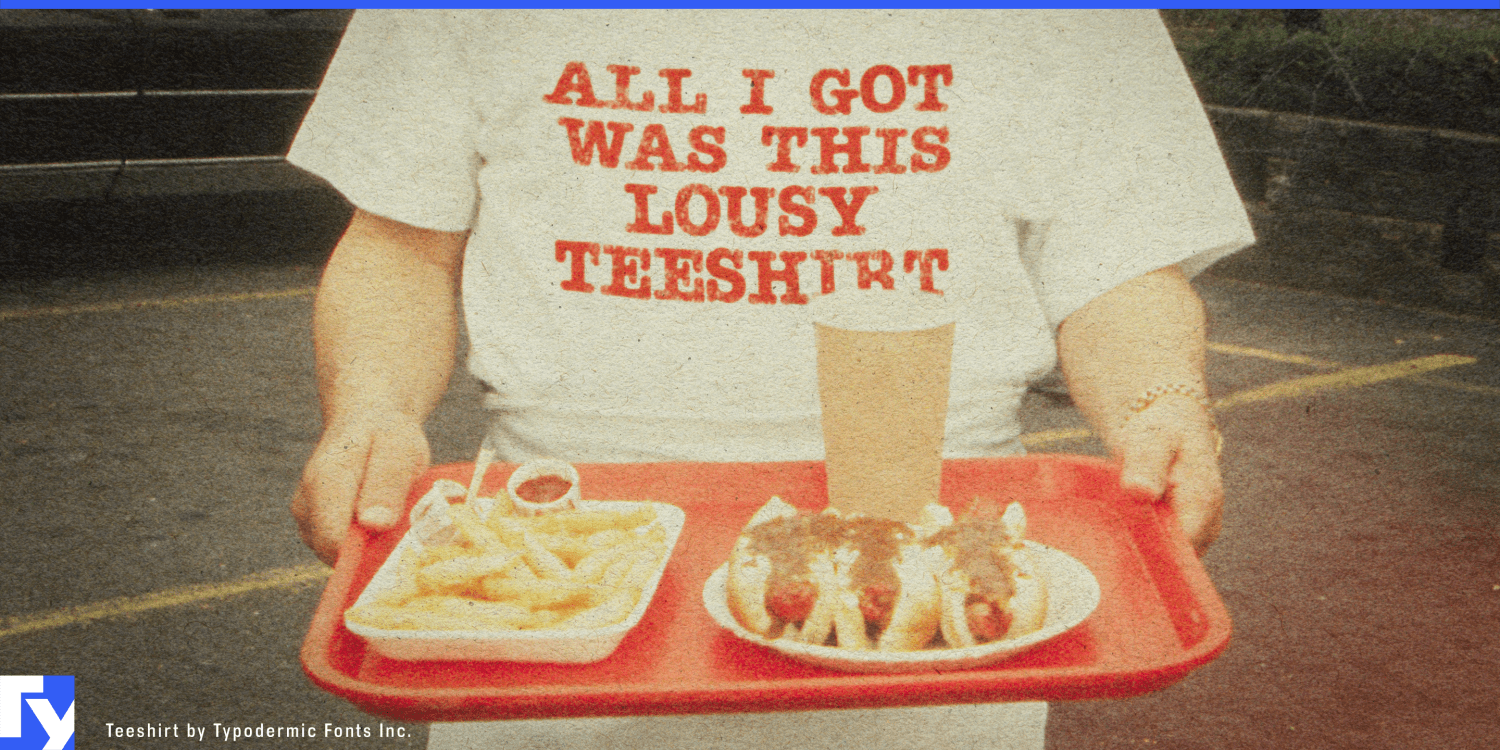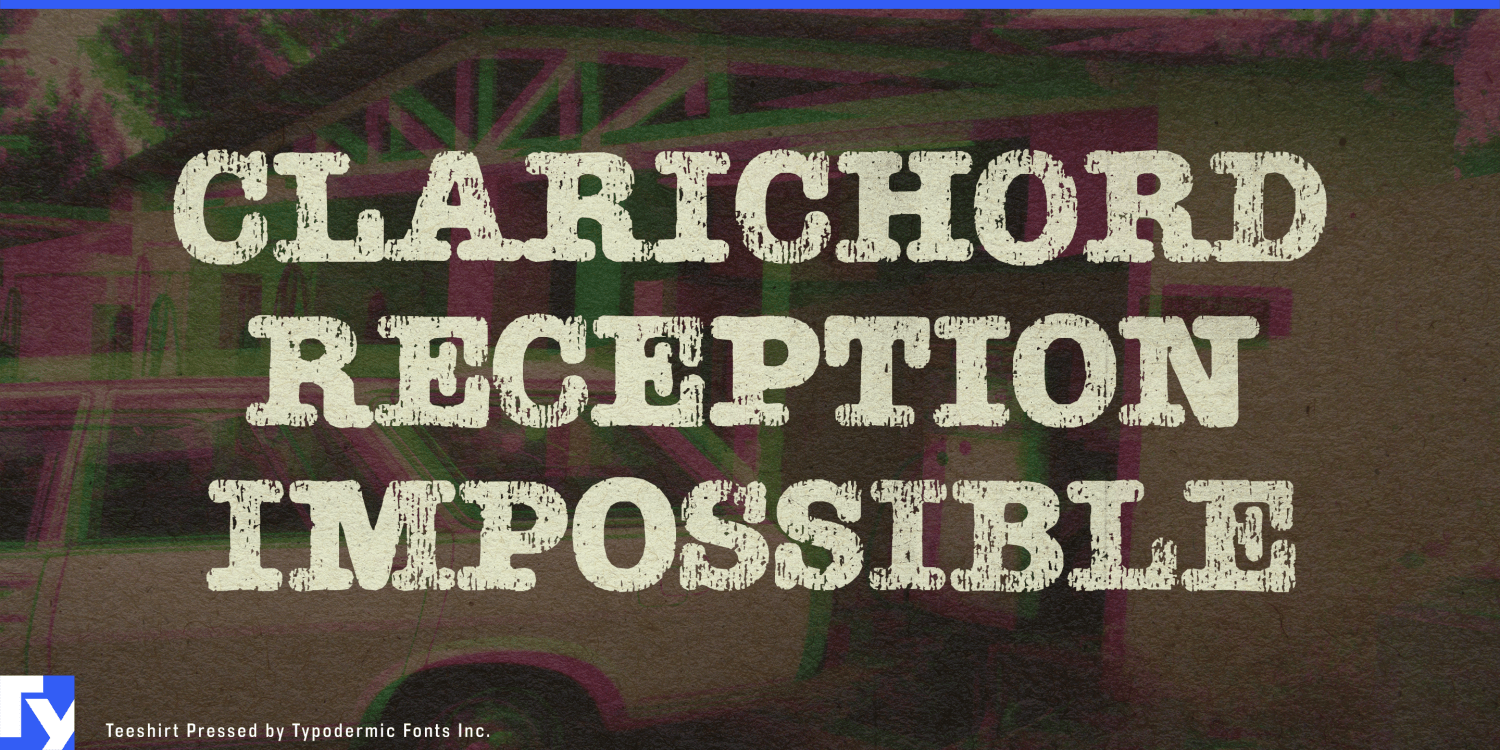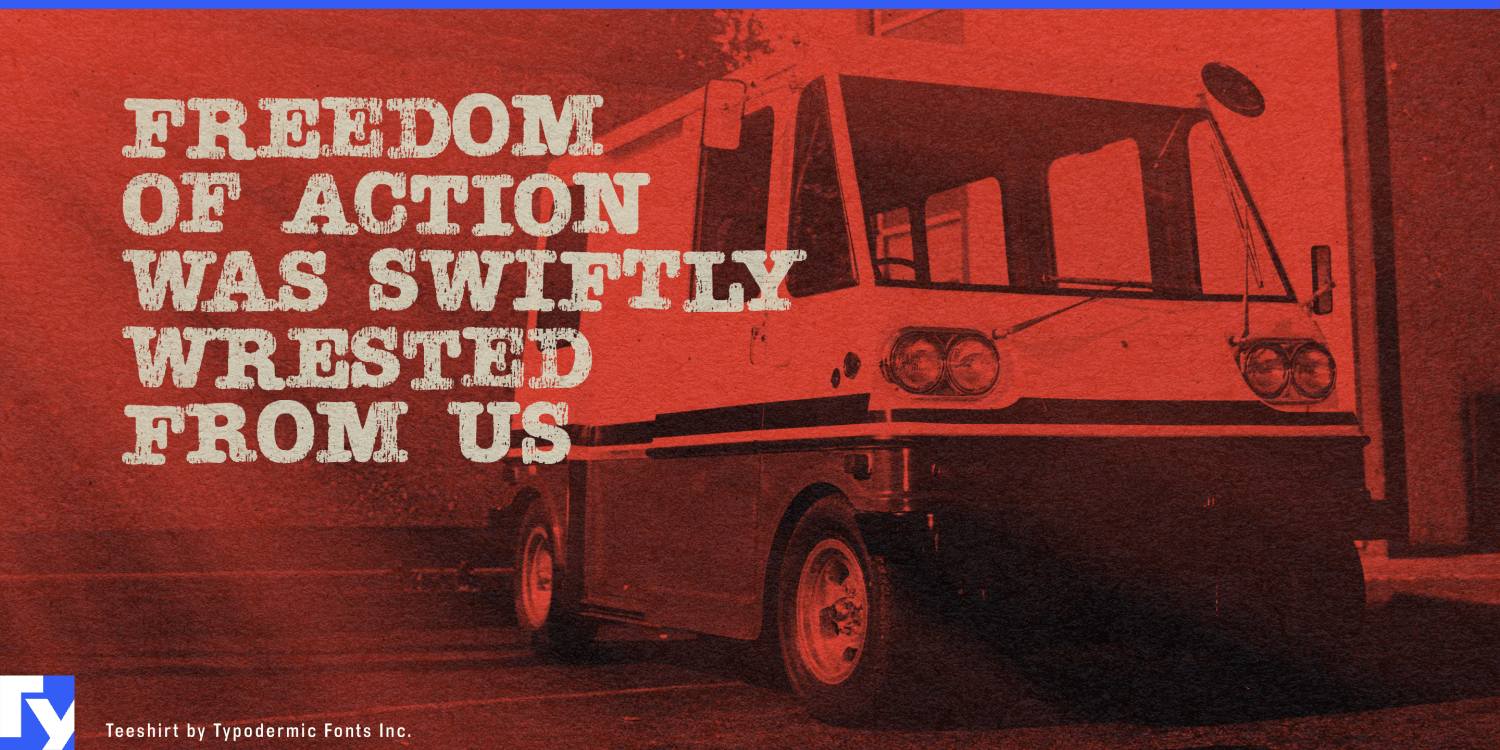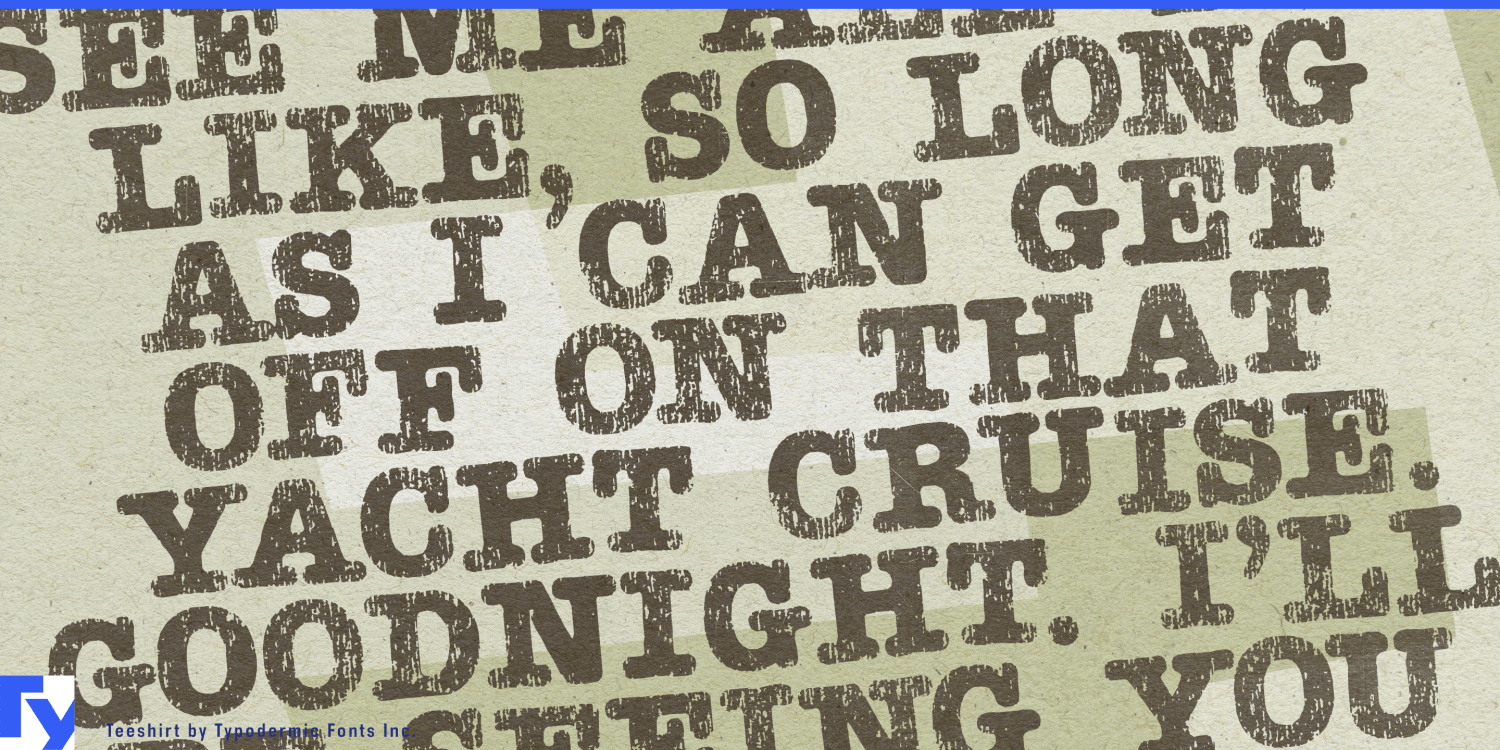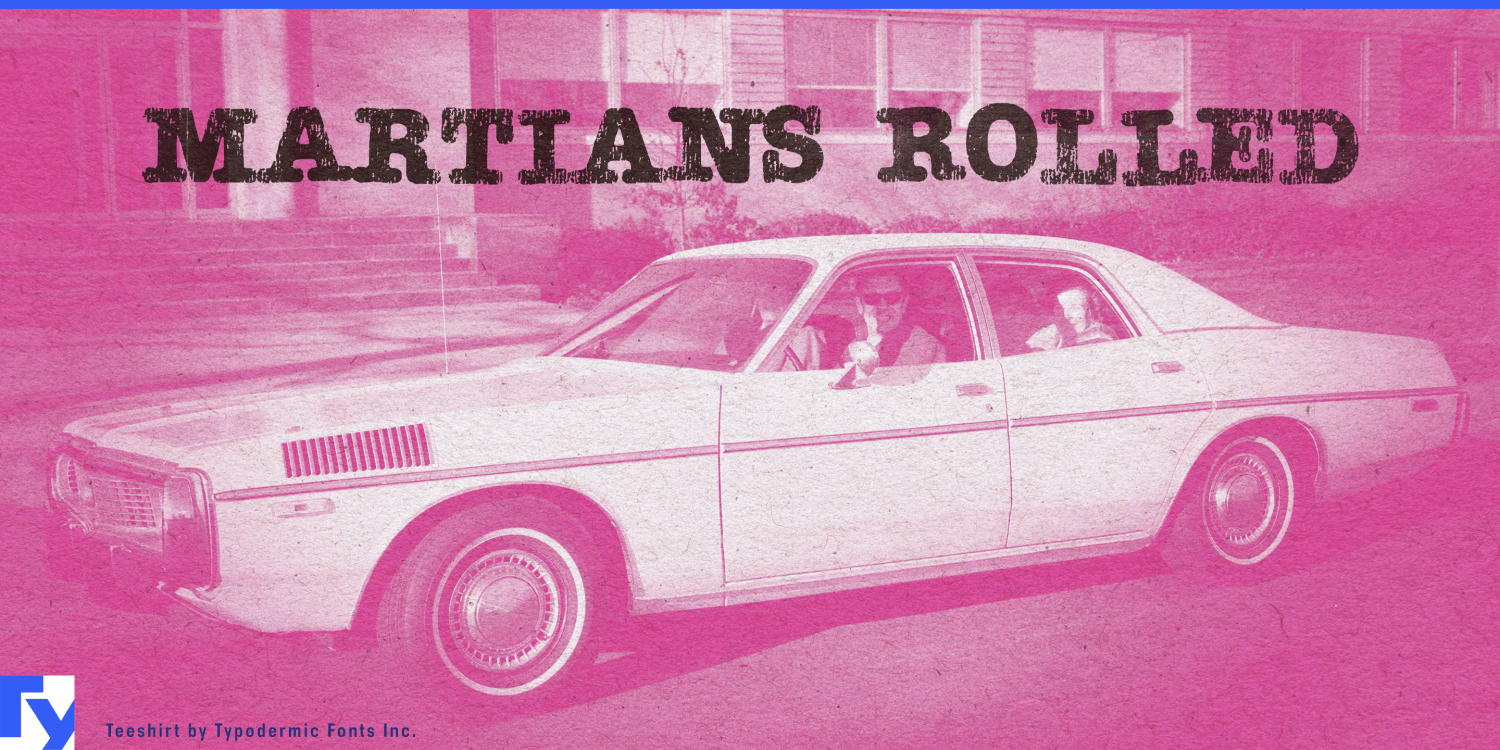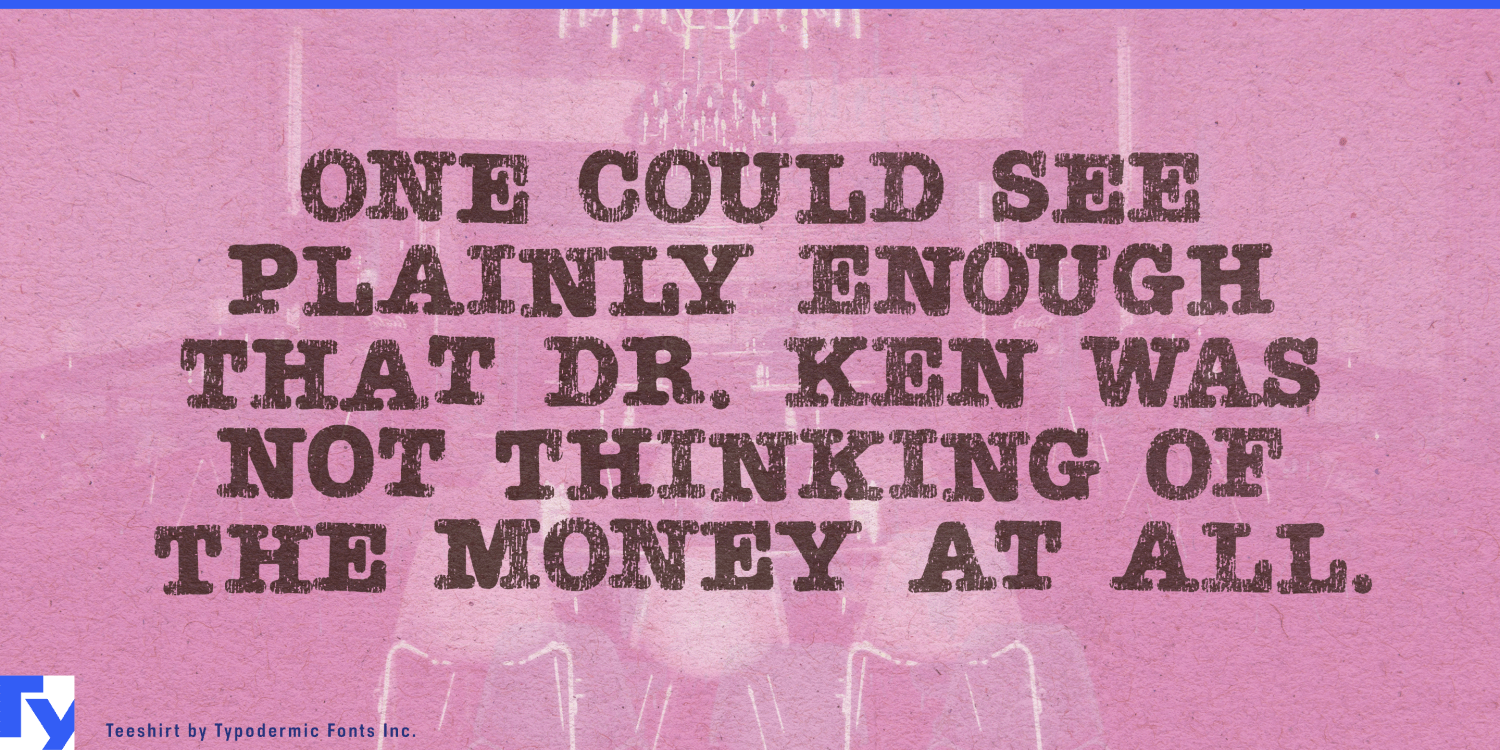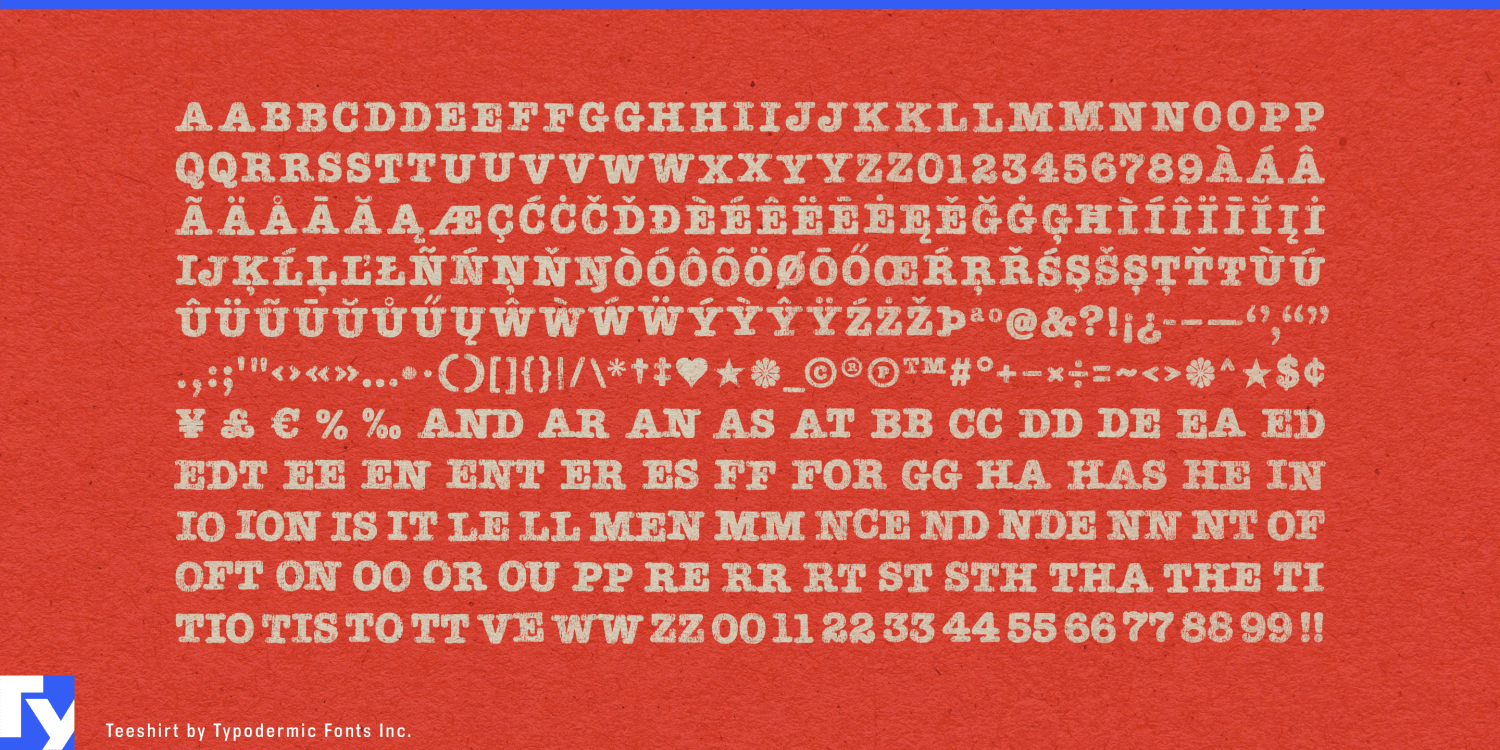
Teeshirt
Font Family by Typodermic
There was a brief period when typewriter-inspired lettering did not read as vintage. In the late 1970s and early 1980s, rounded slab serifs appeared on rock graphics, radio promotions, record-store material, and cheap cotton shirts simply because they looked current. Teeshirt comes from that moment; before the style became nostalgic, and before the 1980s were reduced to neon grids and chrome.
Its starting point was the casual, fashionable presence of American Typewriter, pushed toward the imperfect reality of apparel printing. Letters sit a little unevenly, registration wanders, and the surface carries the broken texture of ink transferred onto fabric. The irregularity is meant to resemble lettering that has been printed on jersey, worn, stretched, and washed; alternate combinations help repeated patterns avoid looking mechanically distressed.
That makes Teeshirt especially convincing for late-1970s and early-1980s music merchandise: fictional tour shirts, record-store tees, radio-station promotions, backstage crew shirts, fan-club graphics, and period wardrobe. It suits the world around power pop, new wave, arena rock, and FM radio without relying on lightning bolts, varsity lettering, or heavy-metal clichés.
The same printed language belonged to ordinary leisure. Summer camps, roller rinks, boardwalk attractions, bowling leagues, amusement parks, softball teams, and local festivals all produced inexpensive shirts tied to a particular place or moment. For film, television, games, and exhibitions set around 1978–1985, Teeshirt can supply the fictional college-radio tee, record-shop uniform, regional concert shirt, or forgotten promotional giveaway that helps make the period believable.
Teeshirt Regular preserves the deliberately loose alignment of a worn, cheaply printed shirt. Teeshirt Pressed keeps the same surface character with a more orderly baseline. The family is most convincing when the goal is not simply “retro,” but the specific look of a shirt from the years when this kind of lettering still felt new.